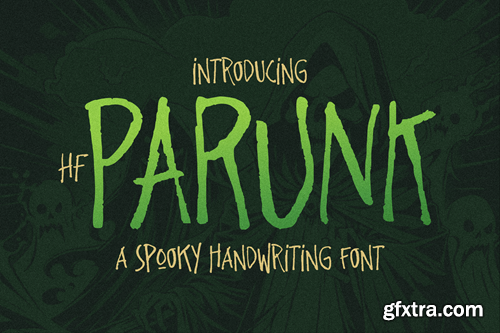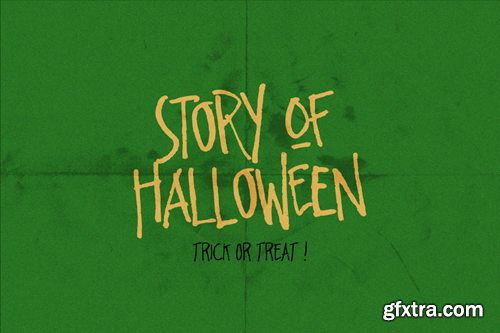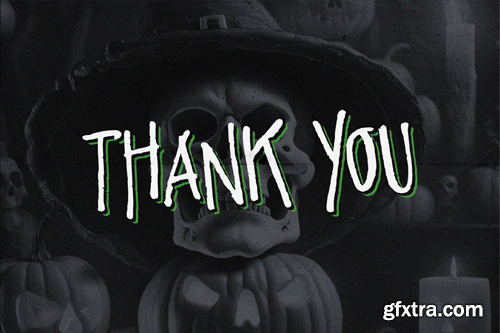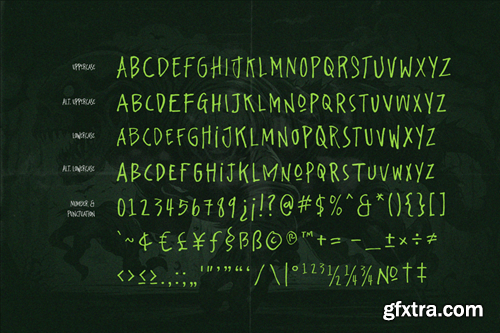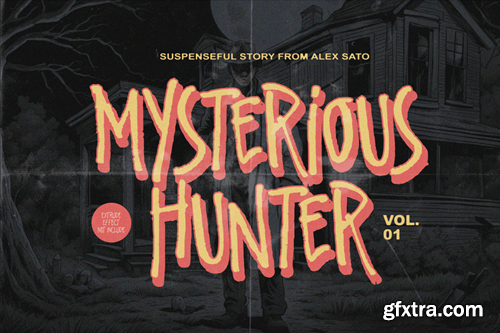
HF Parunk Horror Fonts Z5JYUN
HF Parunk is a cool, humane handwritten font with different letter heights and lows and has a rough appearance because this font was created with a pen on paper, so the roughness in each character is very natural. This Parunk font is only in All caps form but the characters are different when in Uppercase mode and Lowercase mode. The Parunk font is also provided in an alternative version. If you create a writing design with the same letter you can use this feature to add to the naturalness of this font. This font looks very scary so it is very suitable for masculine things, horror films, Halloween posters, horror podcasts, horror content on YouTube and more. Files: Features: